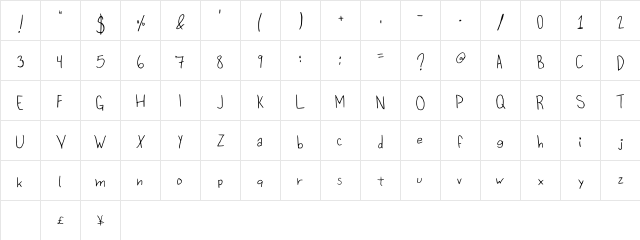
Sour Cream And Onion Regular
Design Context for Sour Cream And Onion
Sour Cream And Onion is a composed and adaptable typeface that performs quietly and consistently across a wide range of design contexts.
Pro Tip: Use Sour Cream And Onion in both headline and body roles to test its range before committing to a single application.